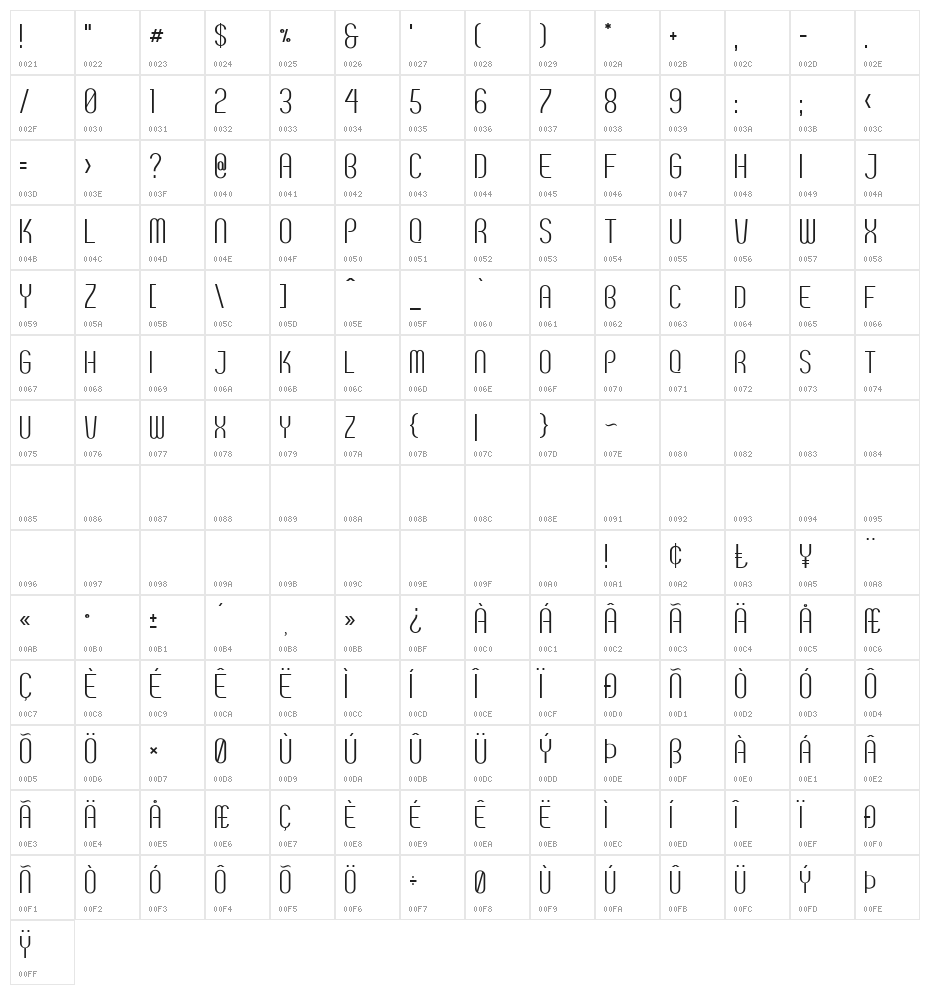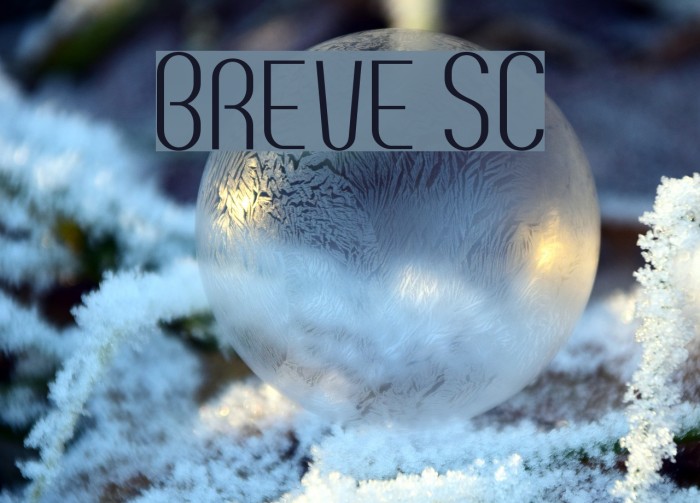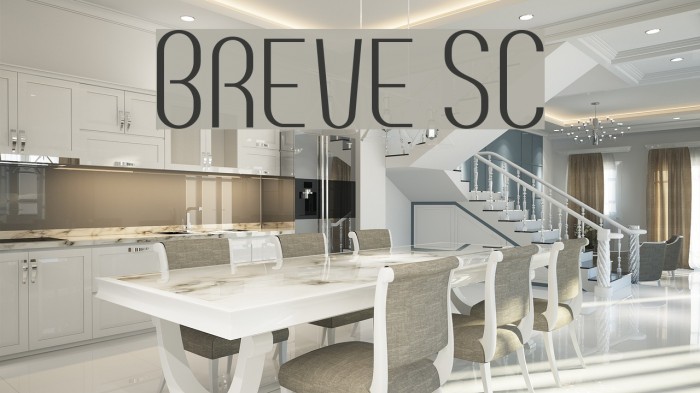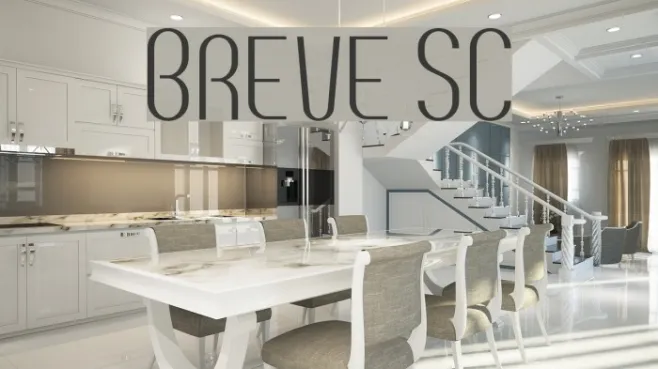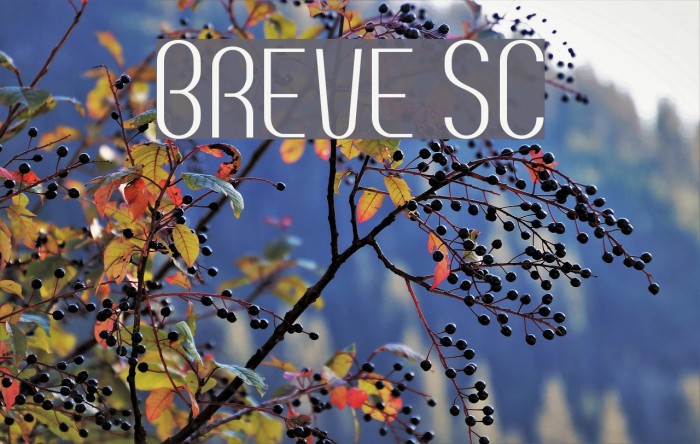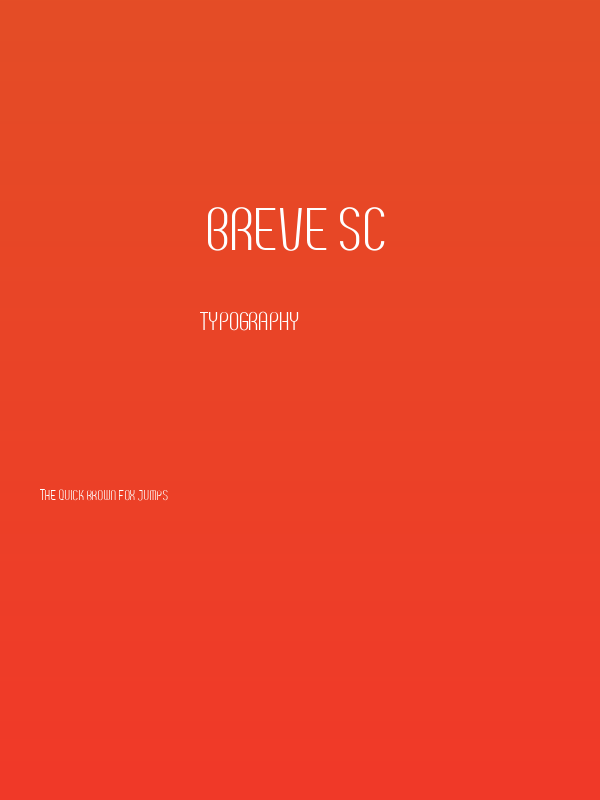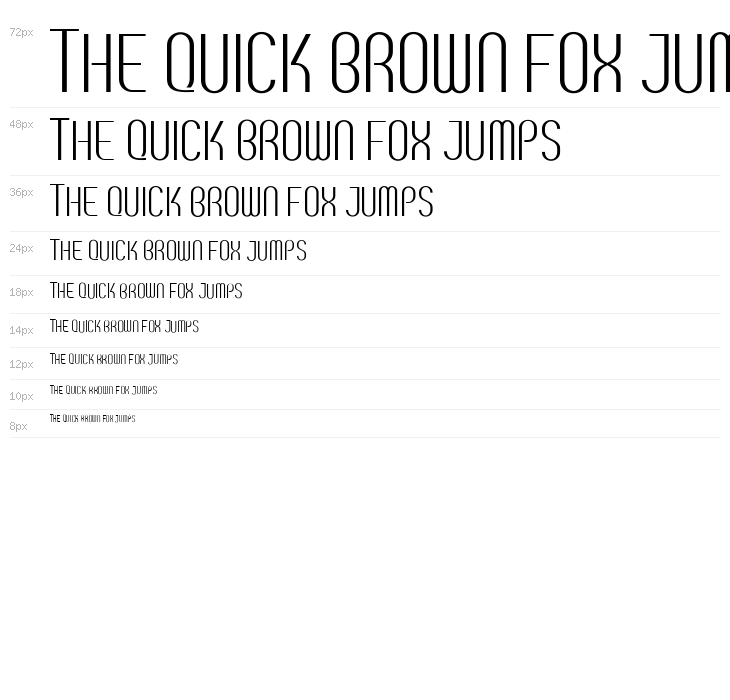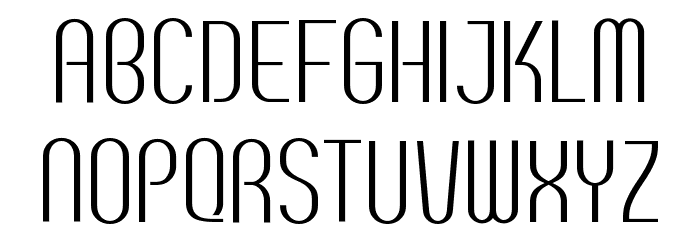
Breve SC Font
Breve SC Description
This font features a sleek and modern design with tall, narrow characters that convey a sense of elegance and sophistication. The uppercase letters are uniform in height, with a consistent stroke width that gives the font a clean and streamlined appearance. The lowercase letters maintain the same narrow structure, ensuring readability while adding a touch of uniqueness. The numerals are similarly styled, complementing the overall aesthetic. Special characters are included, maintaining the font's cohesive look. This typeface is ideal for projects that require a contemporary and stylish touch.
| Proposed Projects | Ideal for branding, editorial design, fashion magazines, and modern web design. |